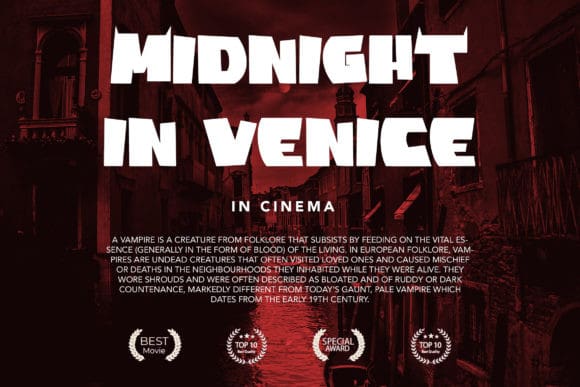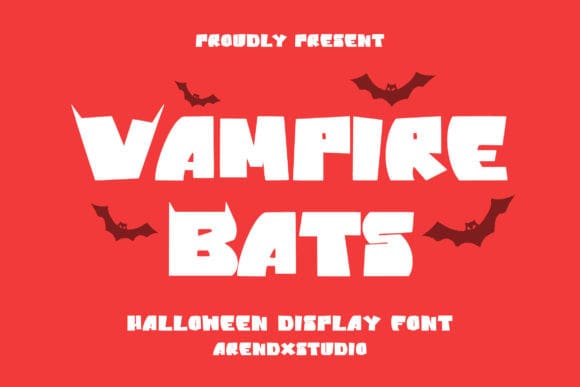
Vampire Bats Font
Vampire Bats Font is a cool, quirky and uniquely designed display font. This font is PUA encoded which means you can access all of the glyphs and swashes with ease!
Add it to each of your Halloween designs, and you will love the results.